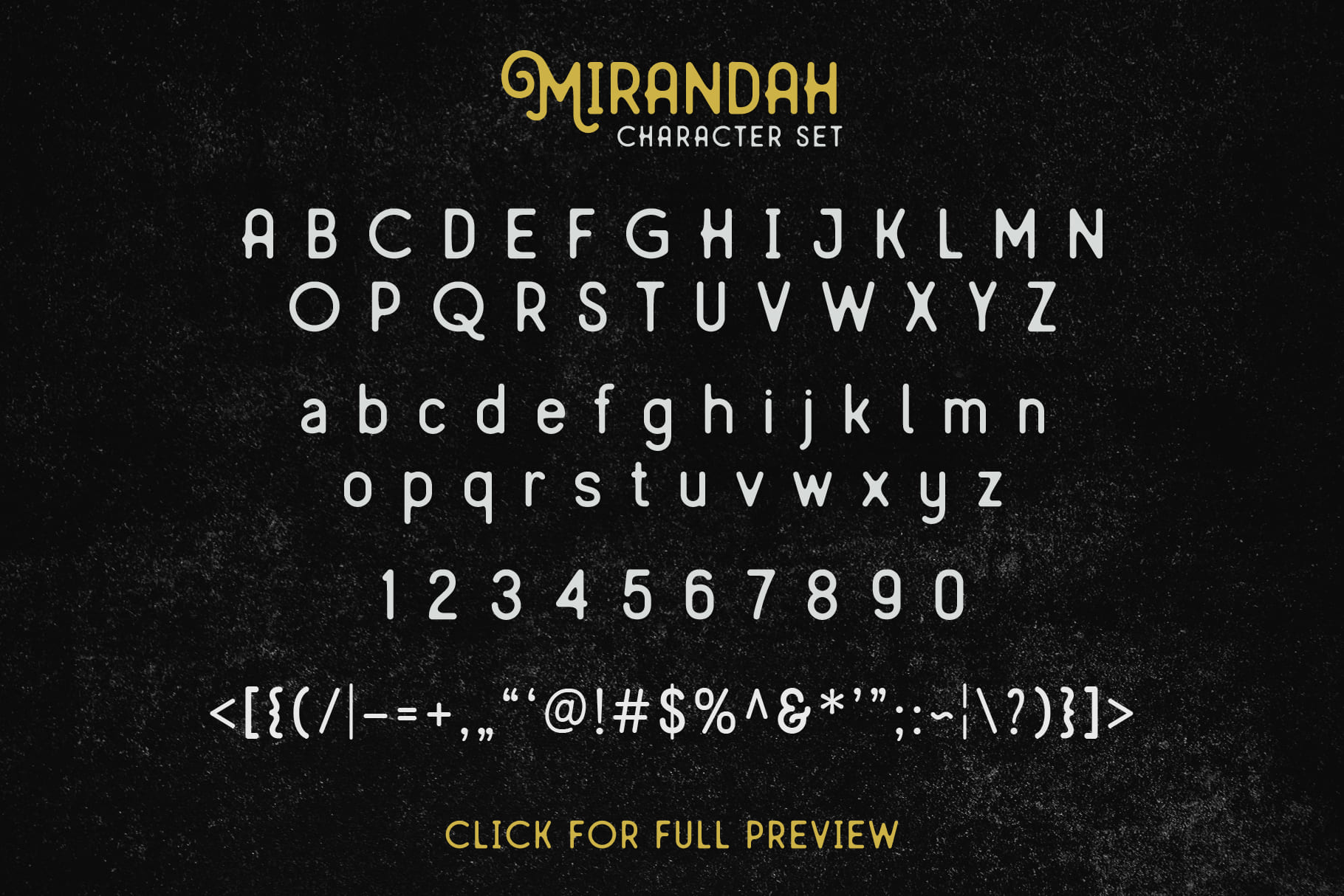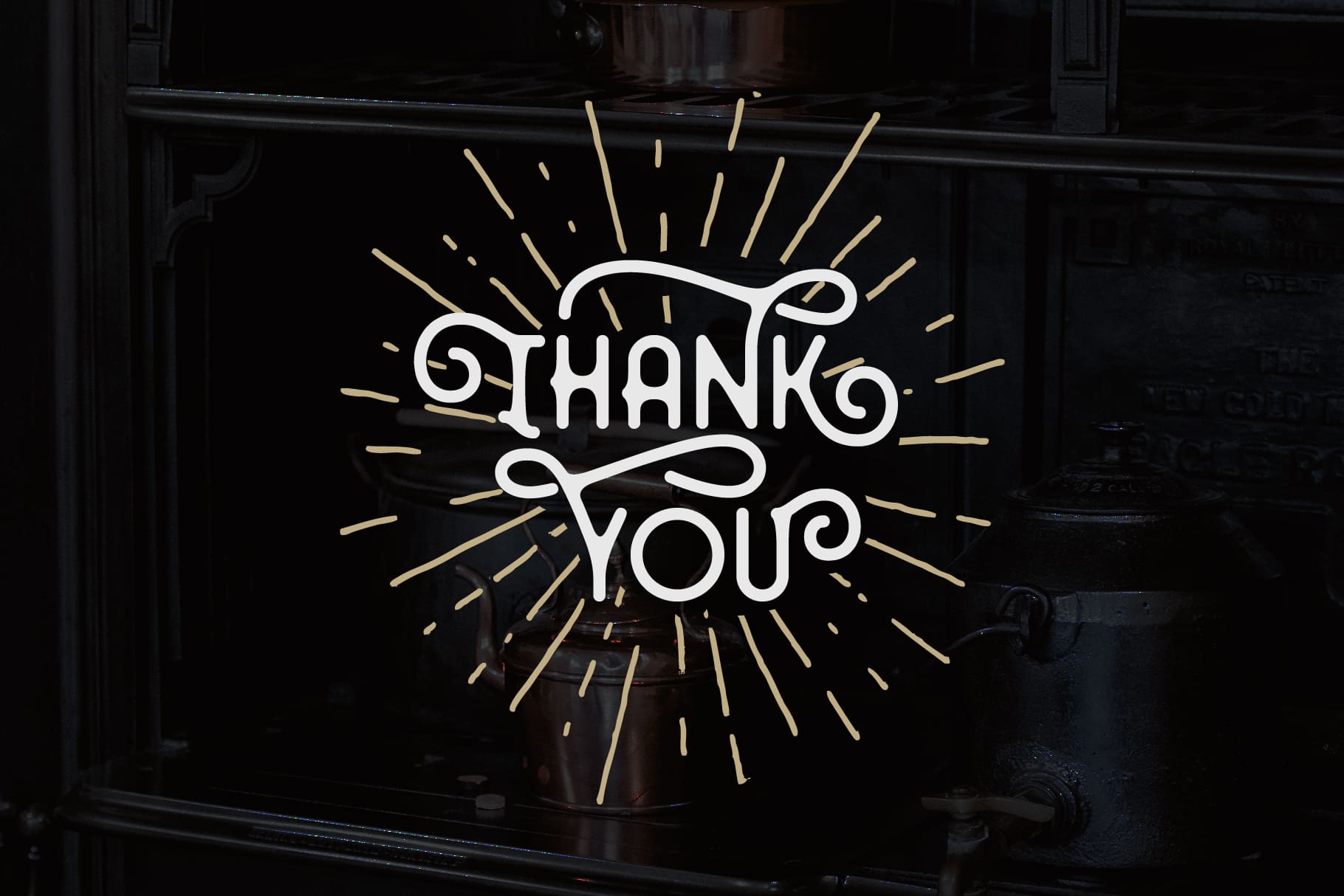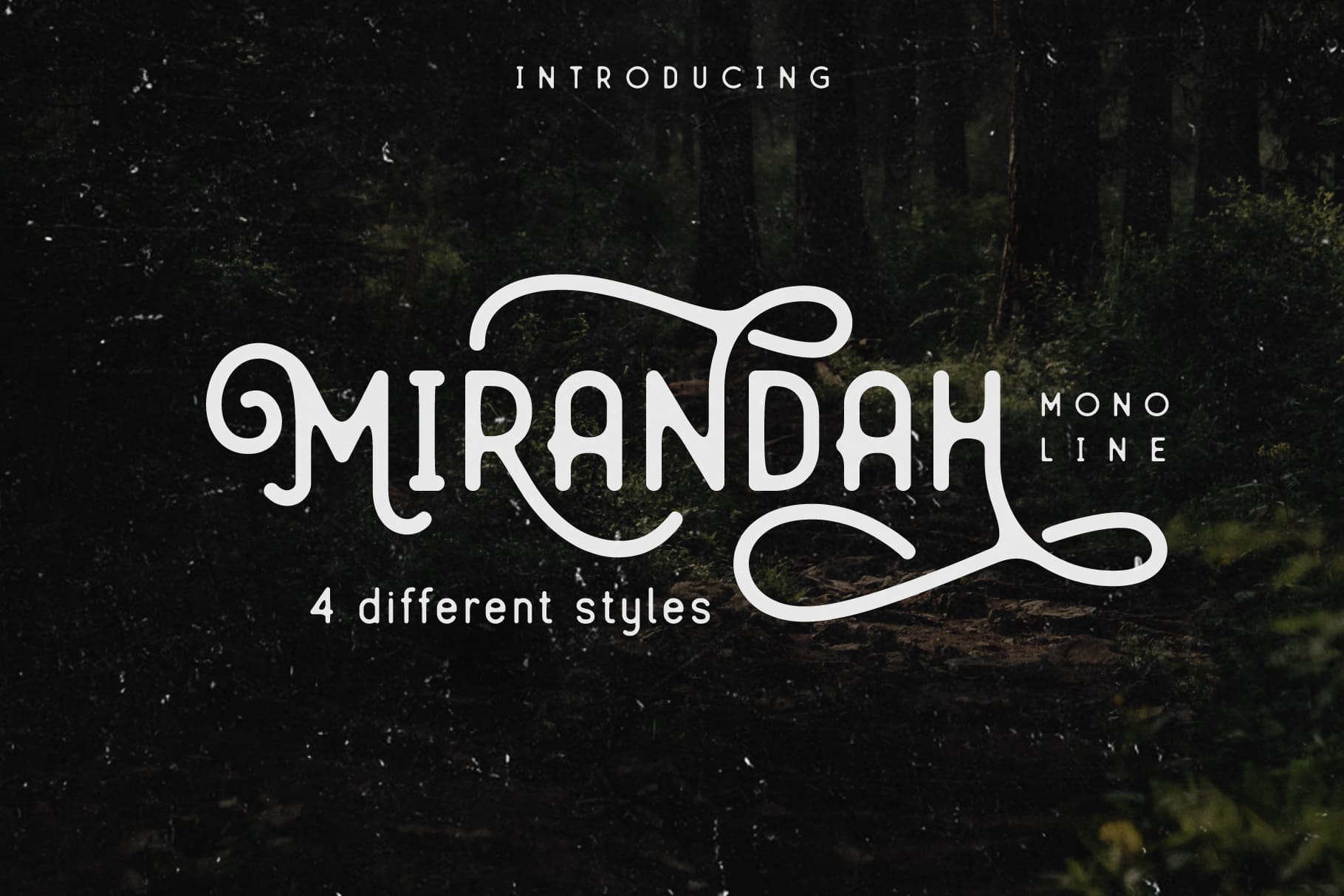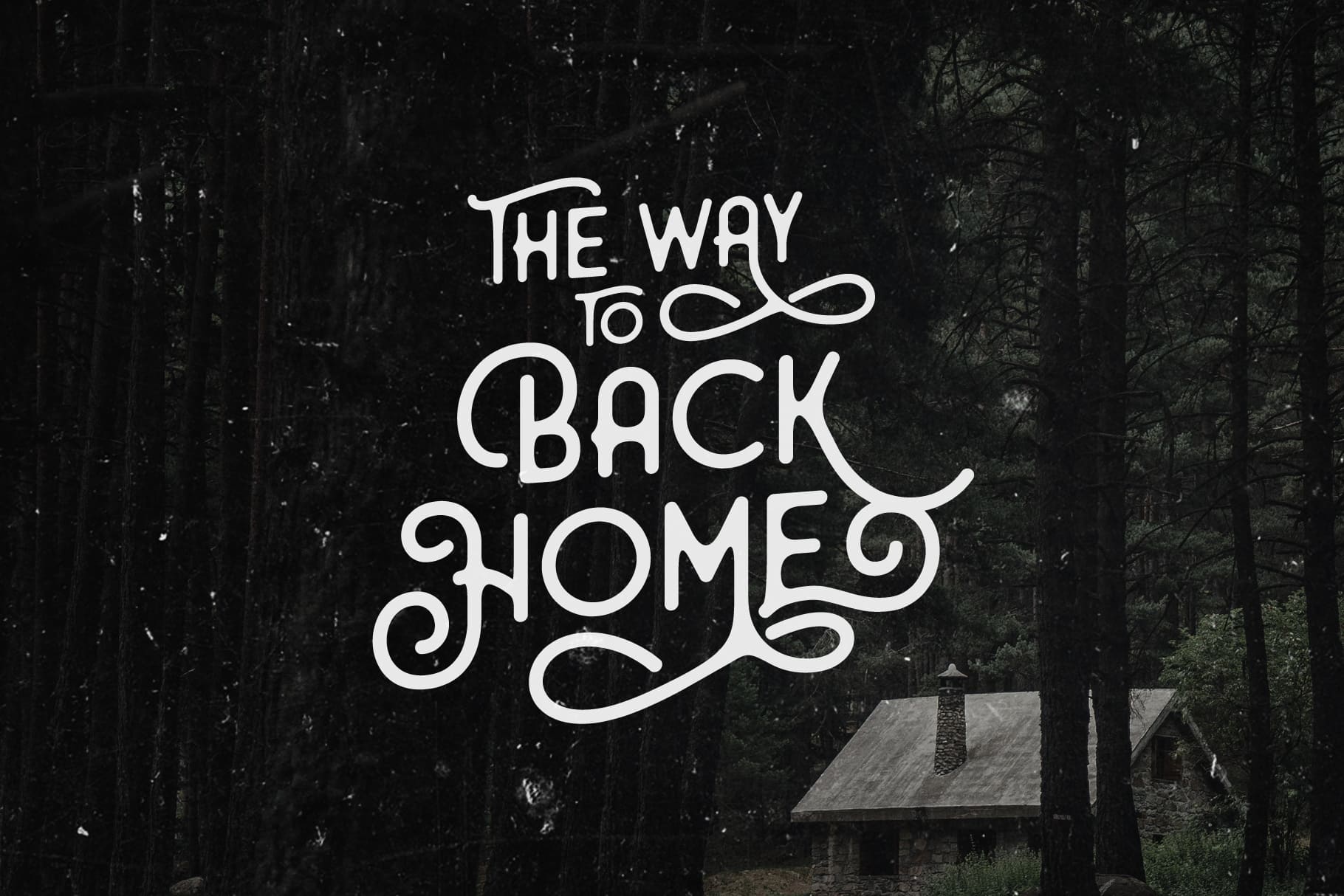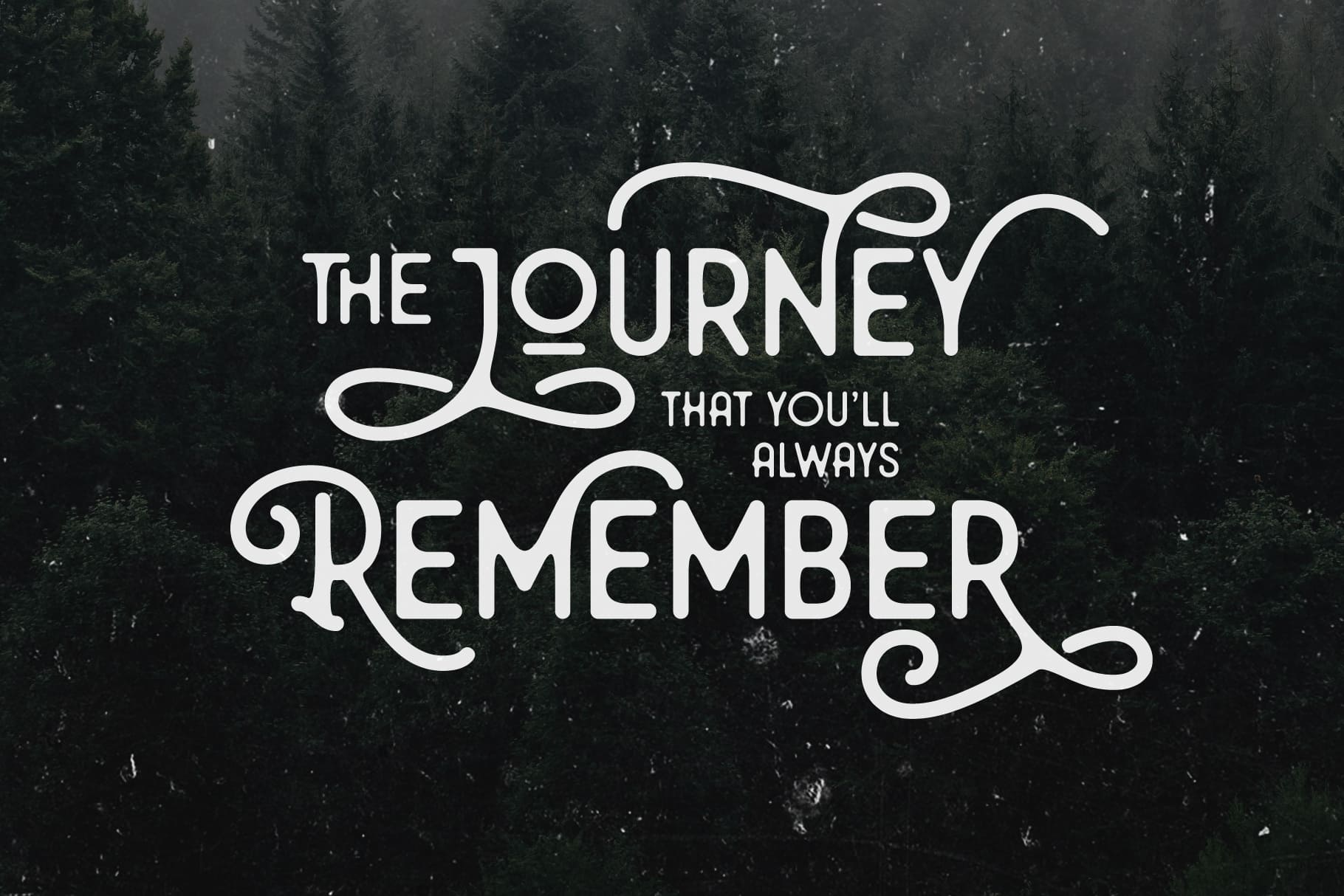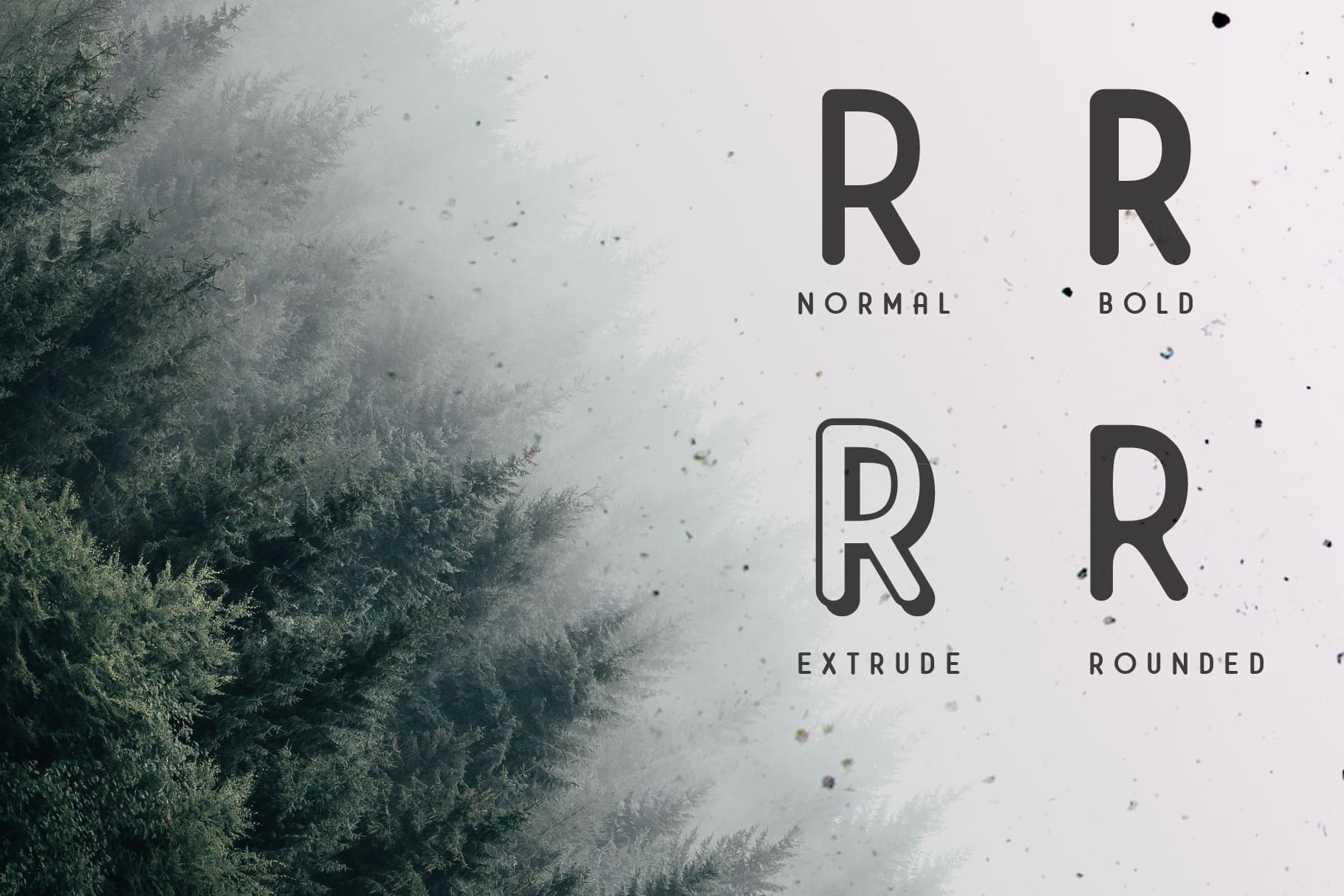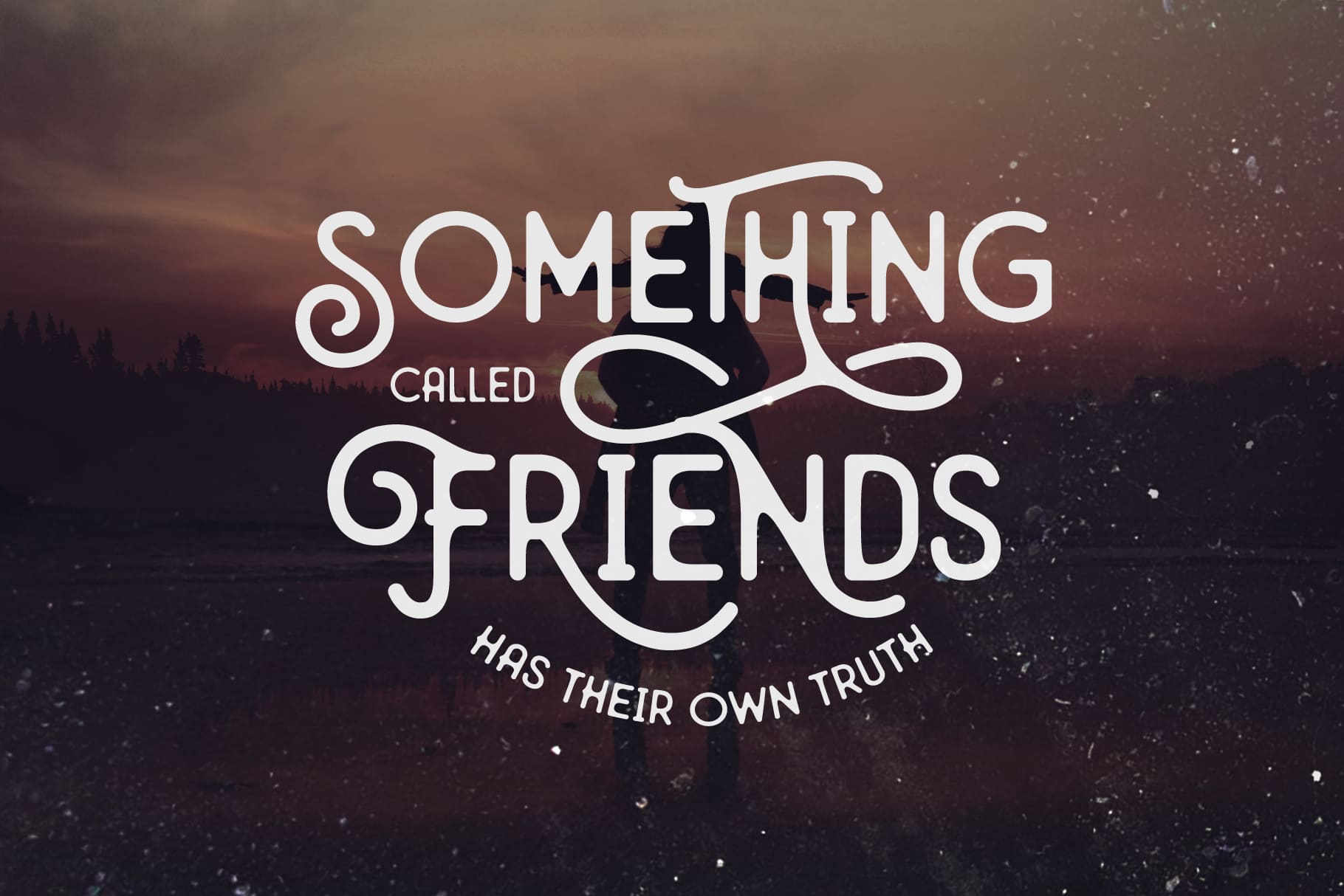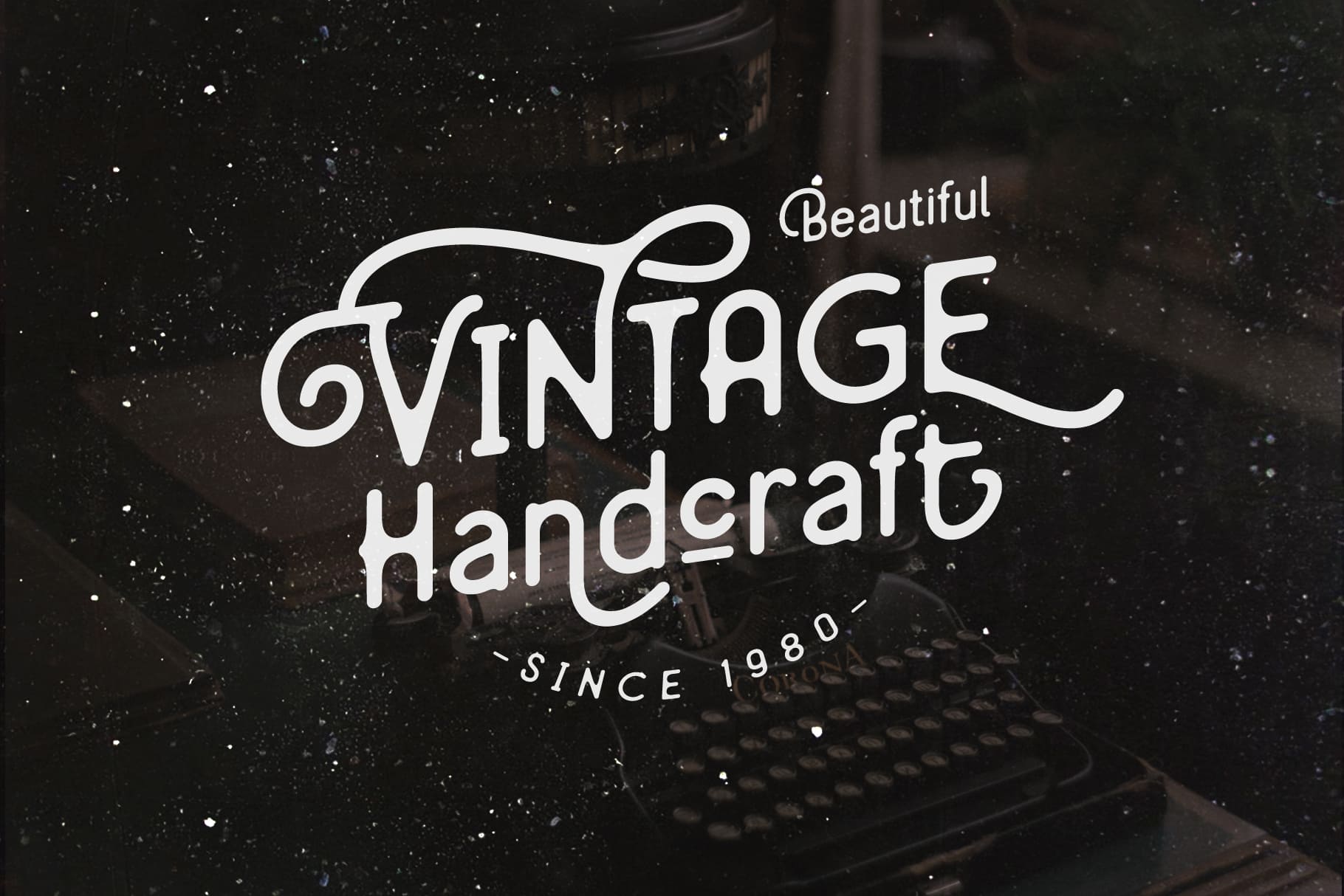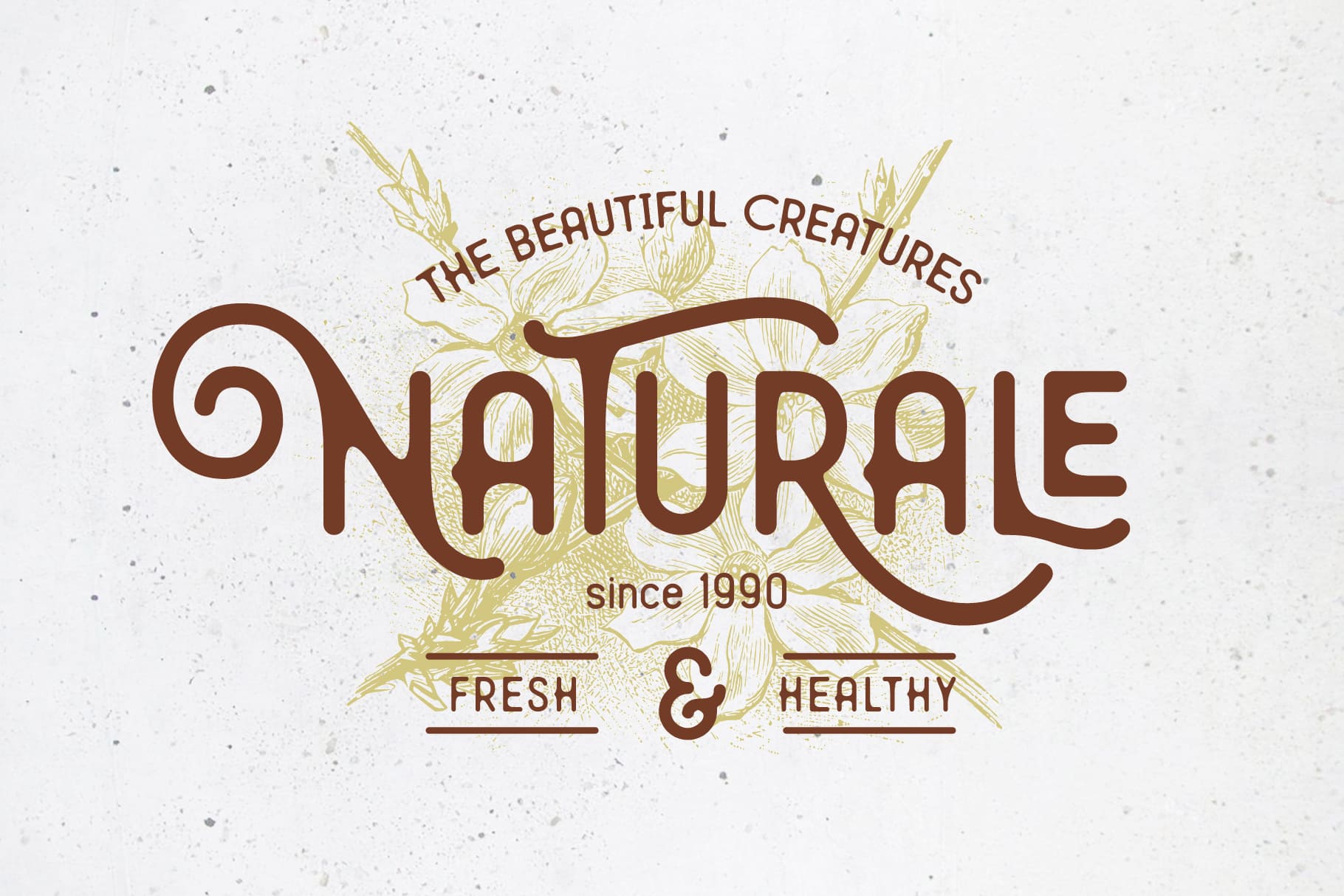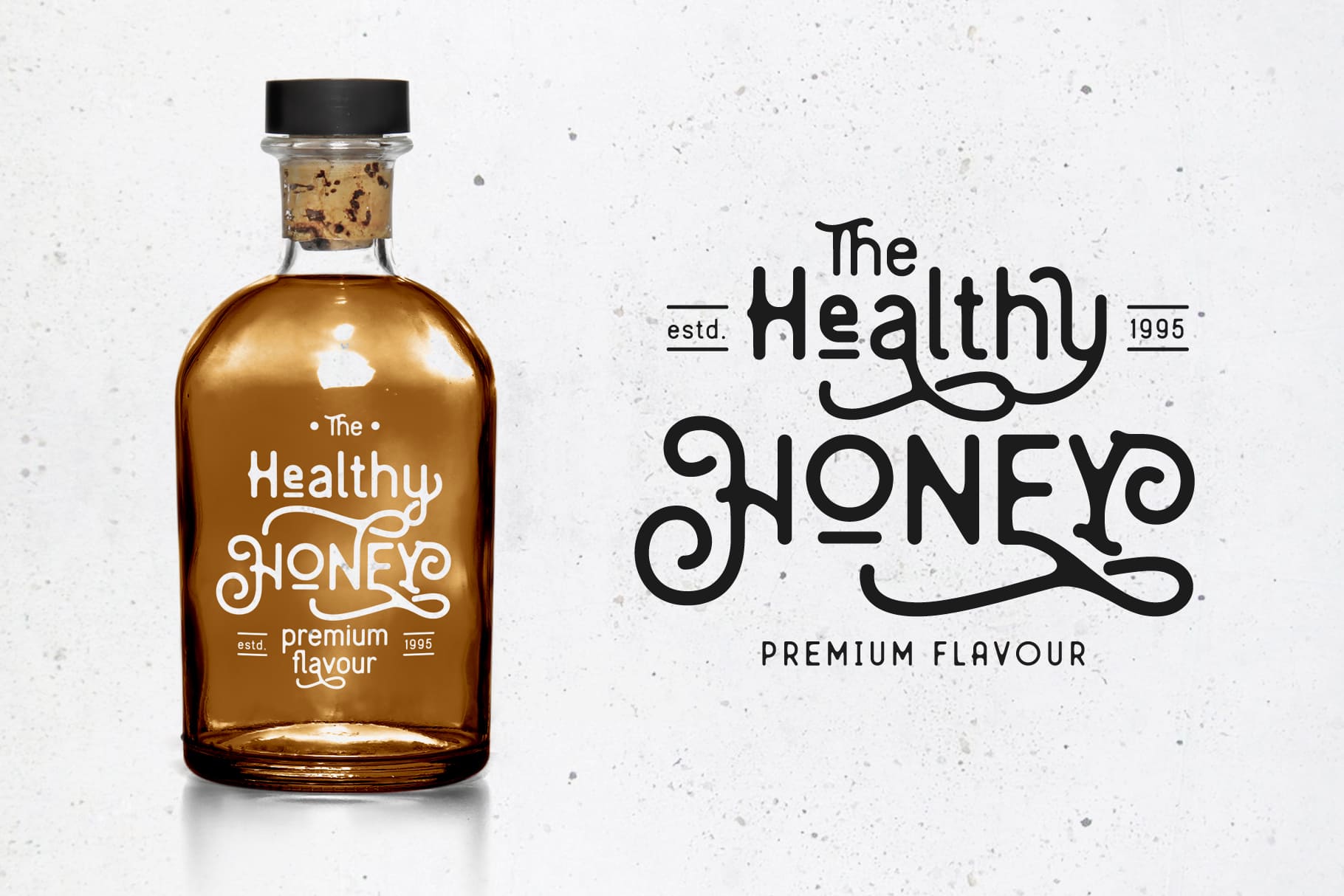
Introducing Mirandah a rounded vintage monoline display typeface inspired by old school letterpress design and rounded sans serif shapes. This family consist of 4 styles each containing over 500 glyphs and OpenType features that gives you many design options. The open type features can be accessed in Font Book (Mac) and Character Map (Win) or accessible via design software such as InDesign, Illustrator, PhotoShop, CorelDraw etc.